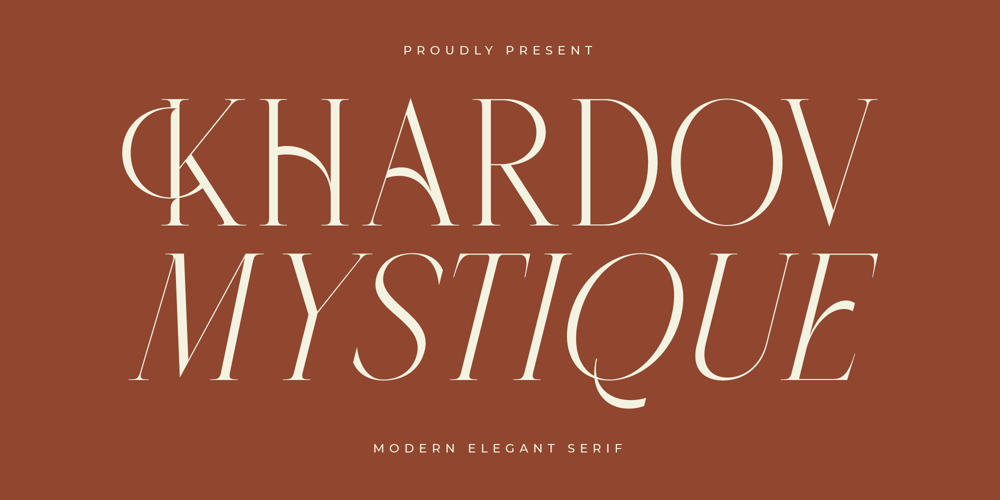
Khardov Mystique Font Family was designed by Heru Utama Putra and published by Letterena Studios. Khardov Mystique contains 2 styles and family package options. Khardov Mystique is an elegant and stylish serif font that epitomizes timeless sophistication. Its meticulously crafted letterforms, adorned with subtle details, blend classical charm with contemporary finesse. Ideal for projects demanding a refined and versatile typeface, Khardov Mystique adds a touch of distinctive grace to your designs.–Uppercase